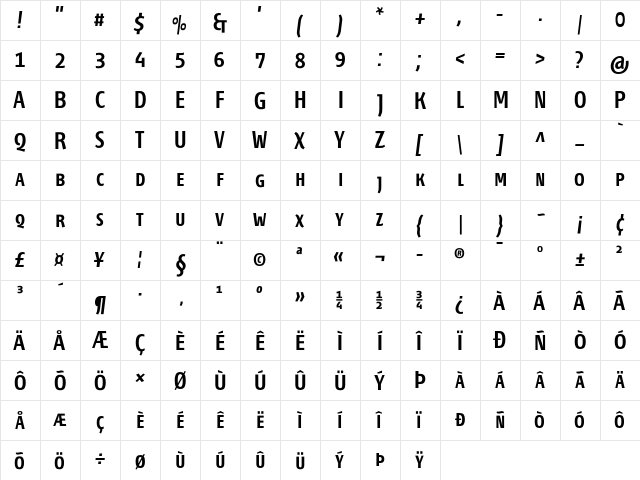
Fontana ND Ee SC Semibold
Design Context for Fontana ND Ee SC Typeface
Fontana ND Ee SC offers clean, dependable letterforms without strong stylistic allegiance, making it a practical choice for designers who need flexibility. The heavy weight commands attention and anchors typographic hierarchies.